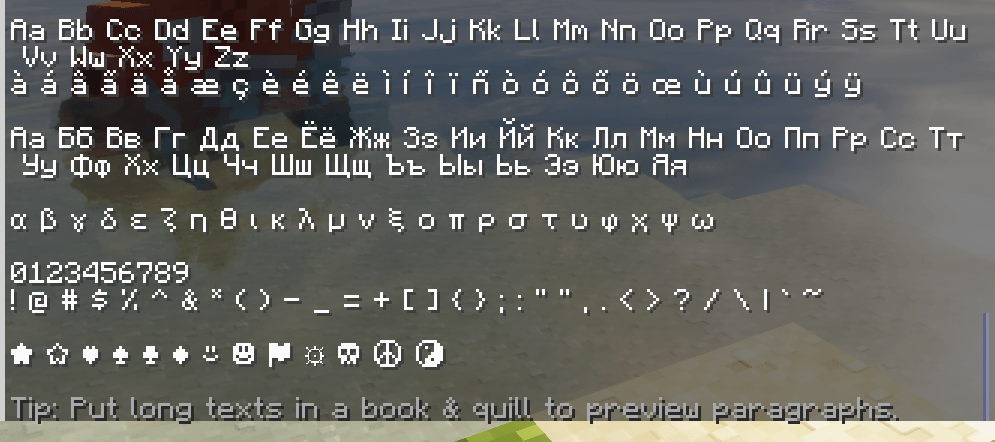
Pokemon Emerald Font Pack
Relive the Pokémon Emerald GBA era with this lightweight font pack that replaces Minecraft’s default text with the authentic Emerald-style typography.
EMERALD POKEMON Font (After)
Default MC Font (Before)